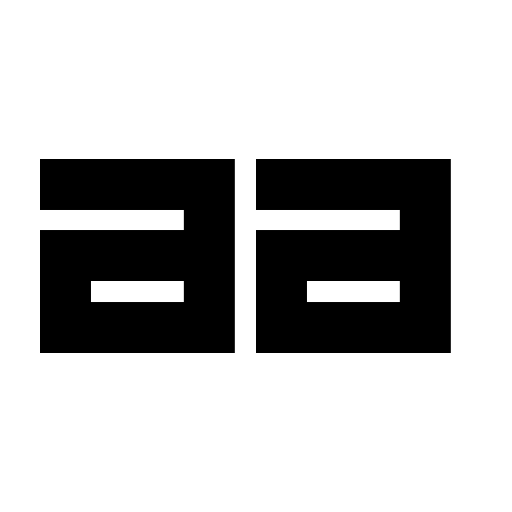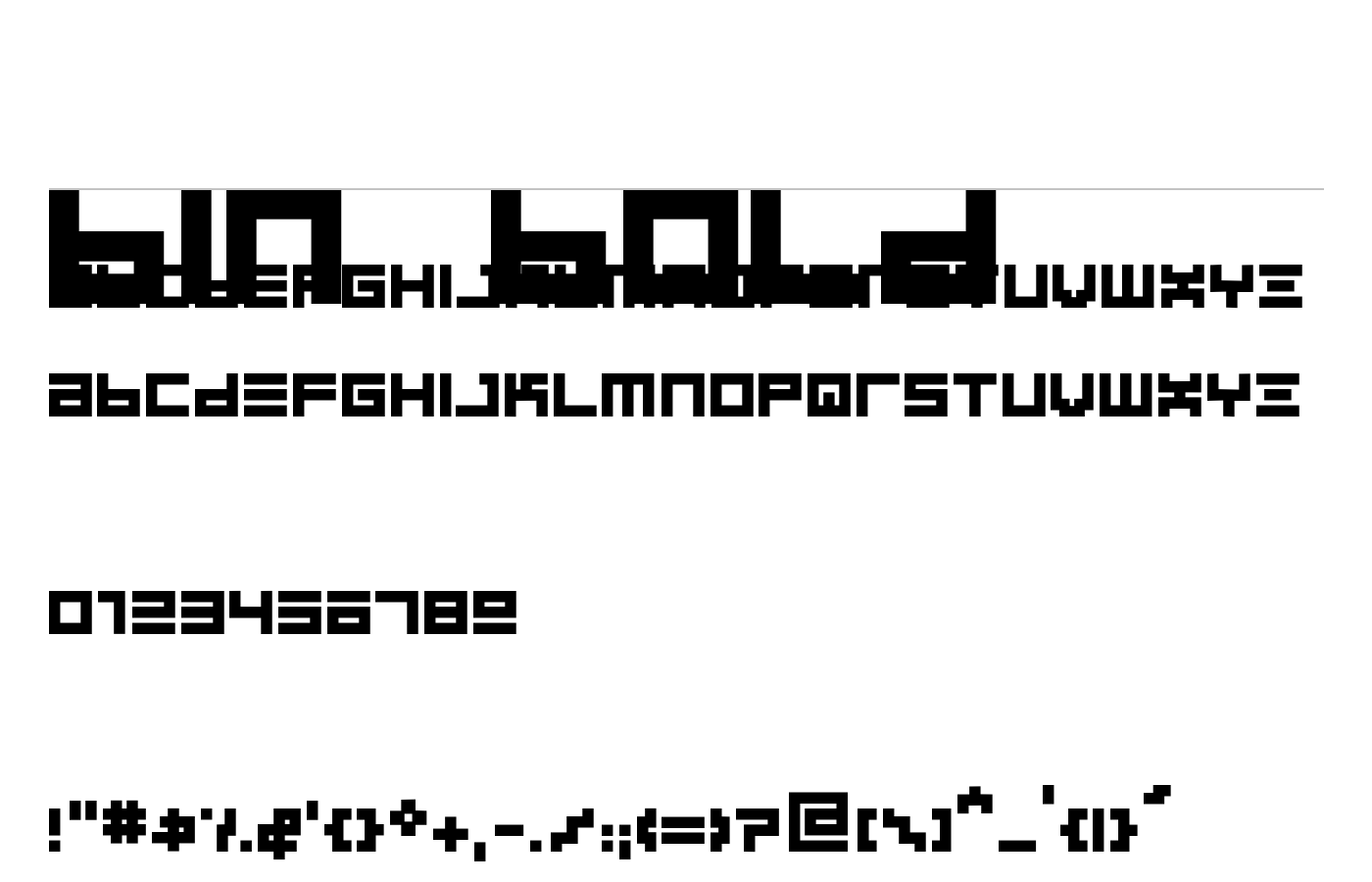
BIN Regular is a bold, geometric sans serif font characterized by its blocky, pixelated letterforms and consistent stroke weight. Its rigid, square shapes and high x-height give it a modern, digital feel, making it ideal for tech-inspired designs, gaming, and futuristic branding. This font works best in headlines, logos, and posters where a strong, technical aesthetic is desired.
| Font family | BIN Regular Font |
| Designer | Stefanie Koerner |